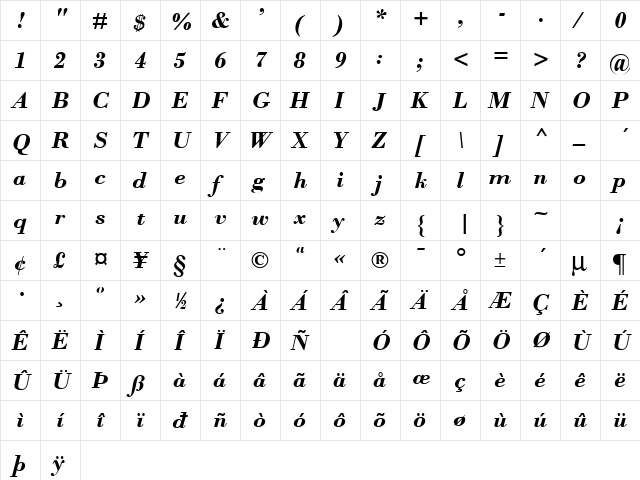
SanteeBoldItali Normal
Design Context for SanteeBoldItali Typeface
SanteeBoldItali offers clean, dependable letterforms without strong stylistic allegiance, making it a practical choice for designers who need flexibility. Its bold stroke weight gives it real presence on the page.